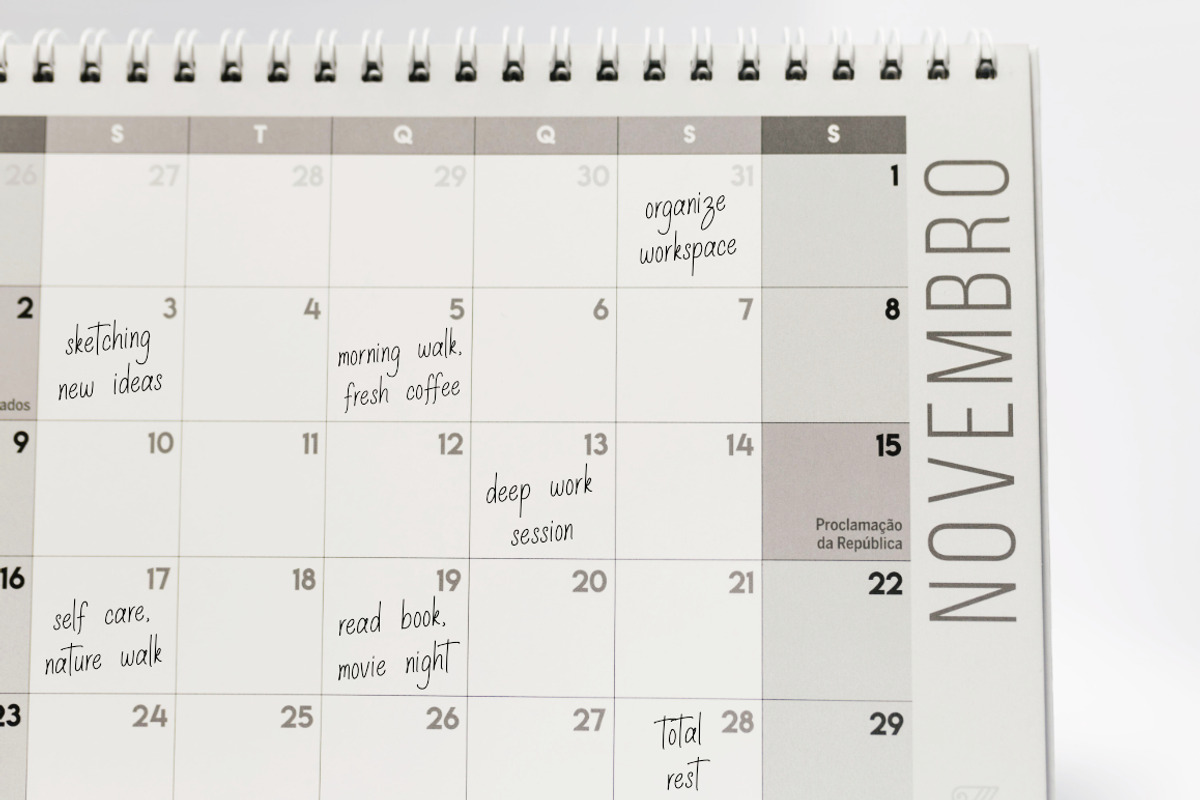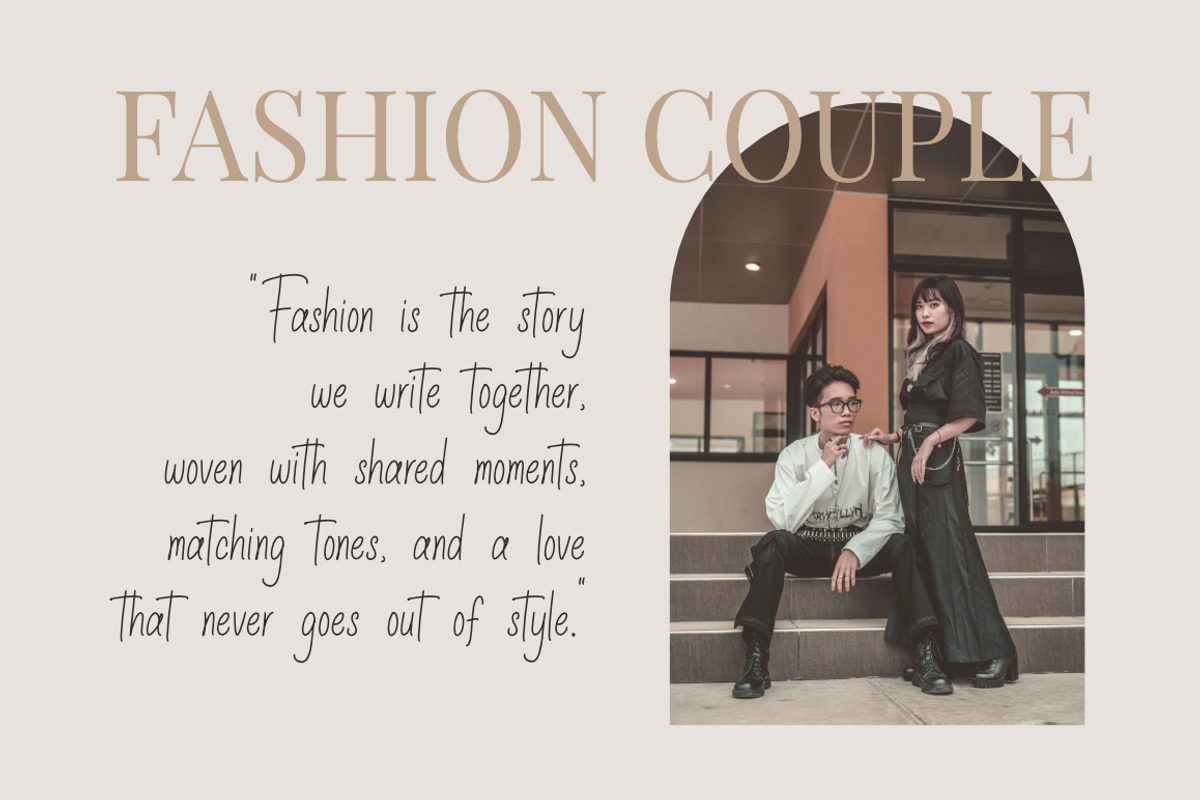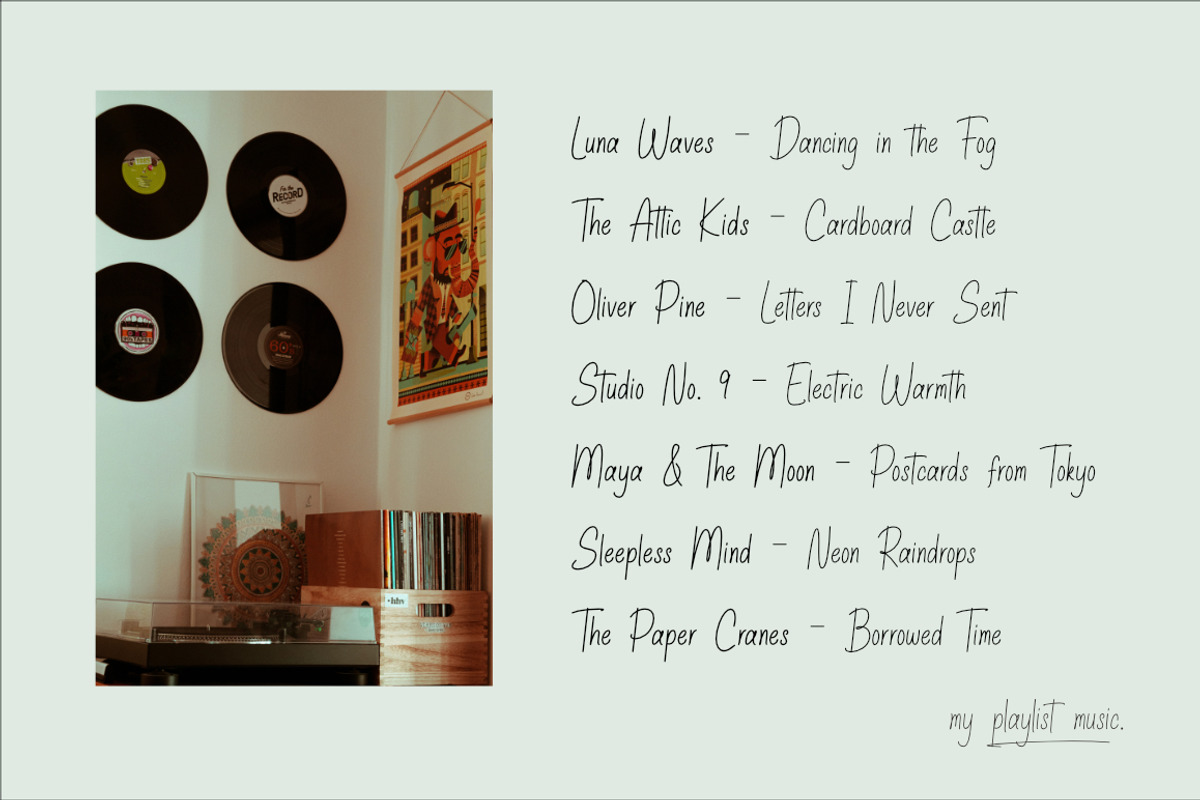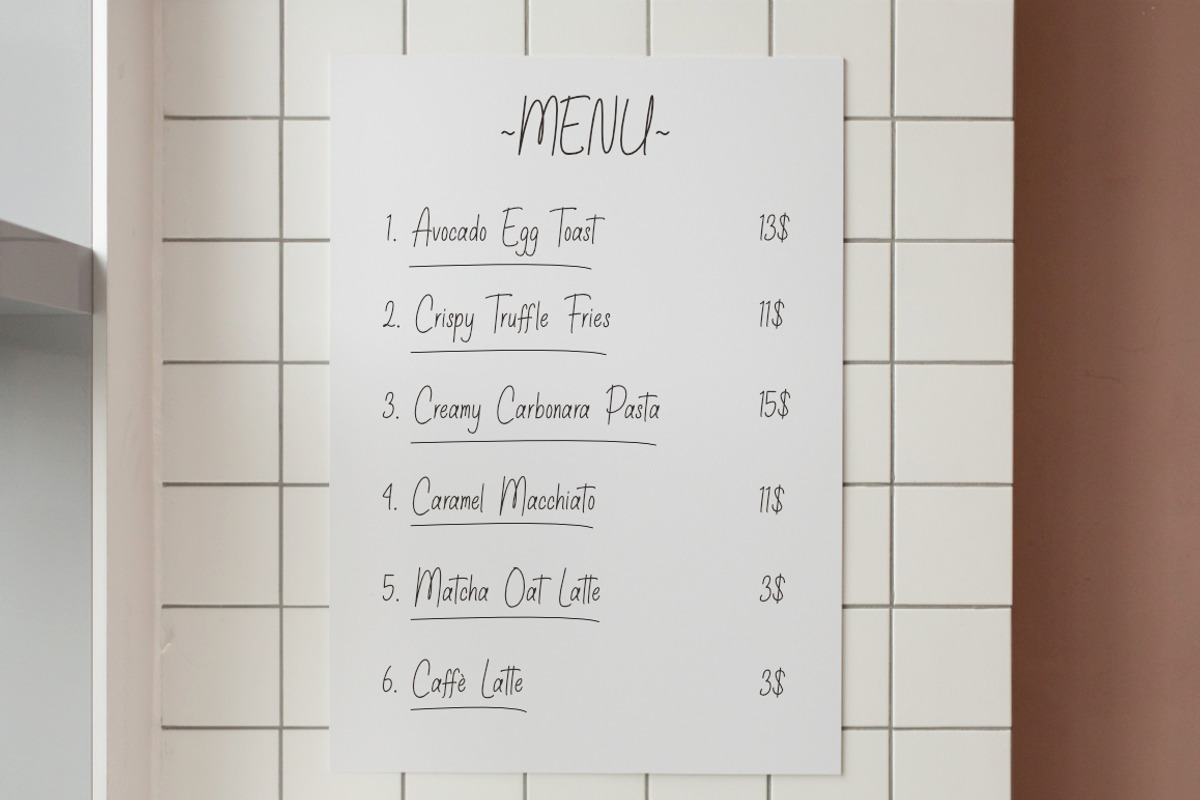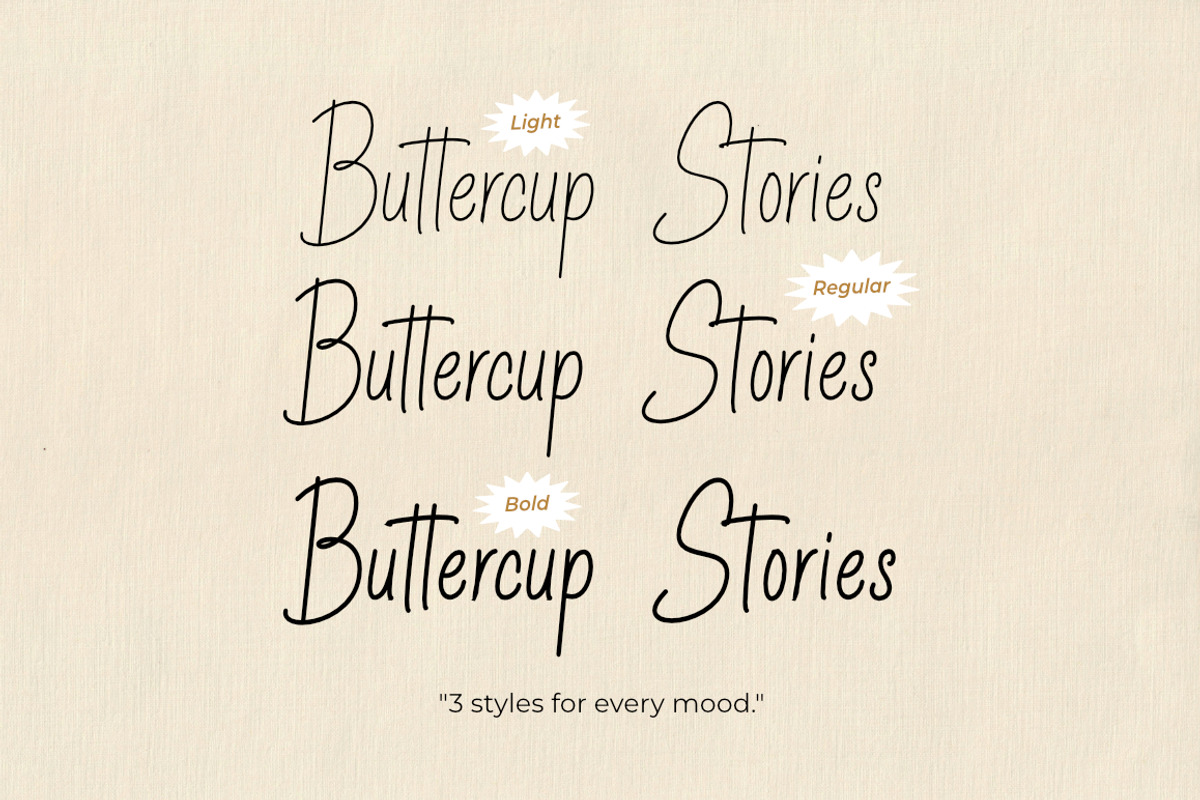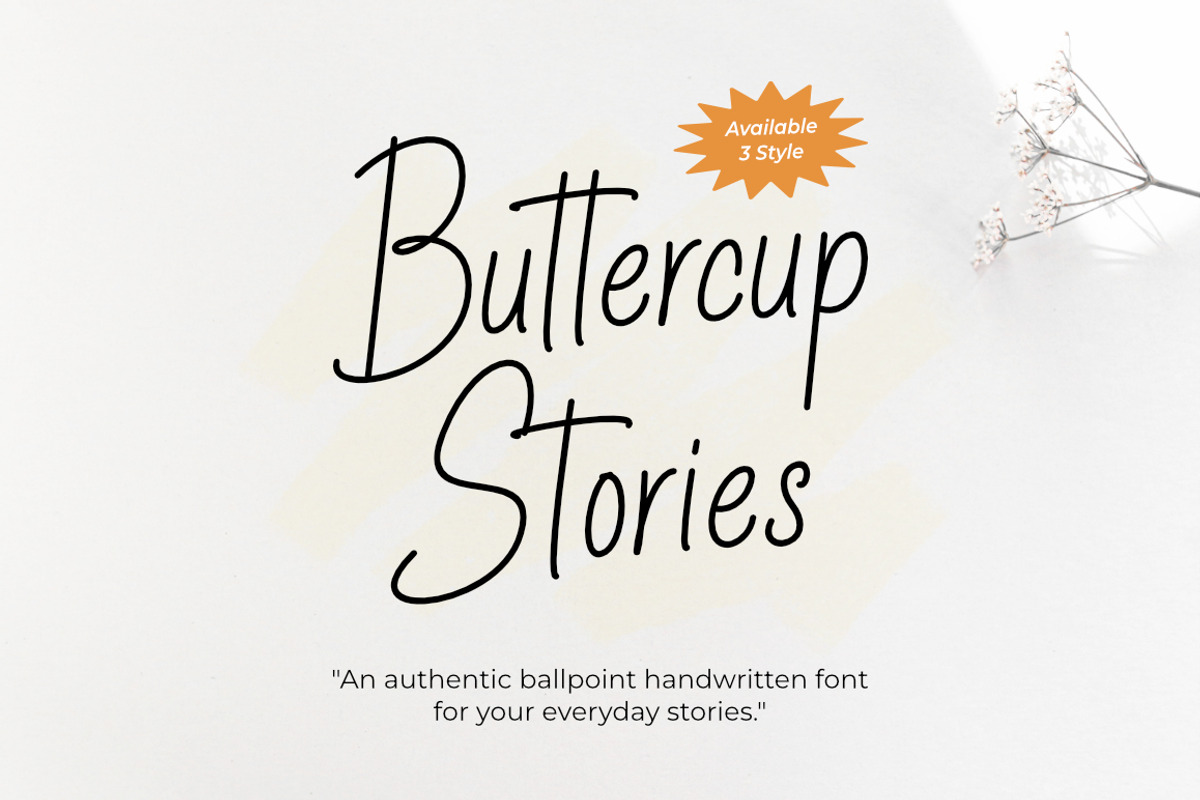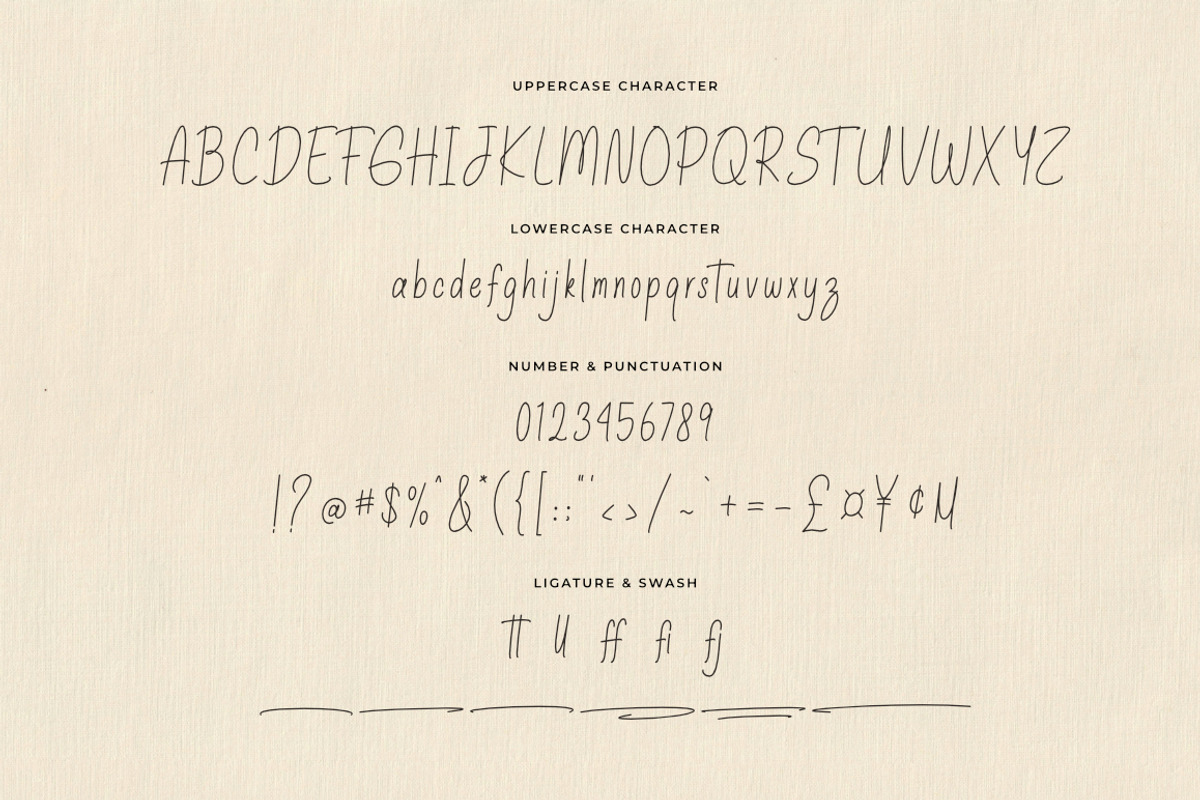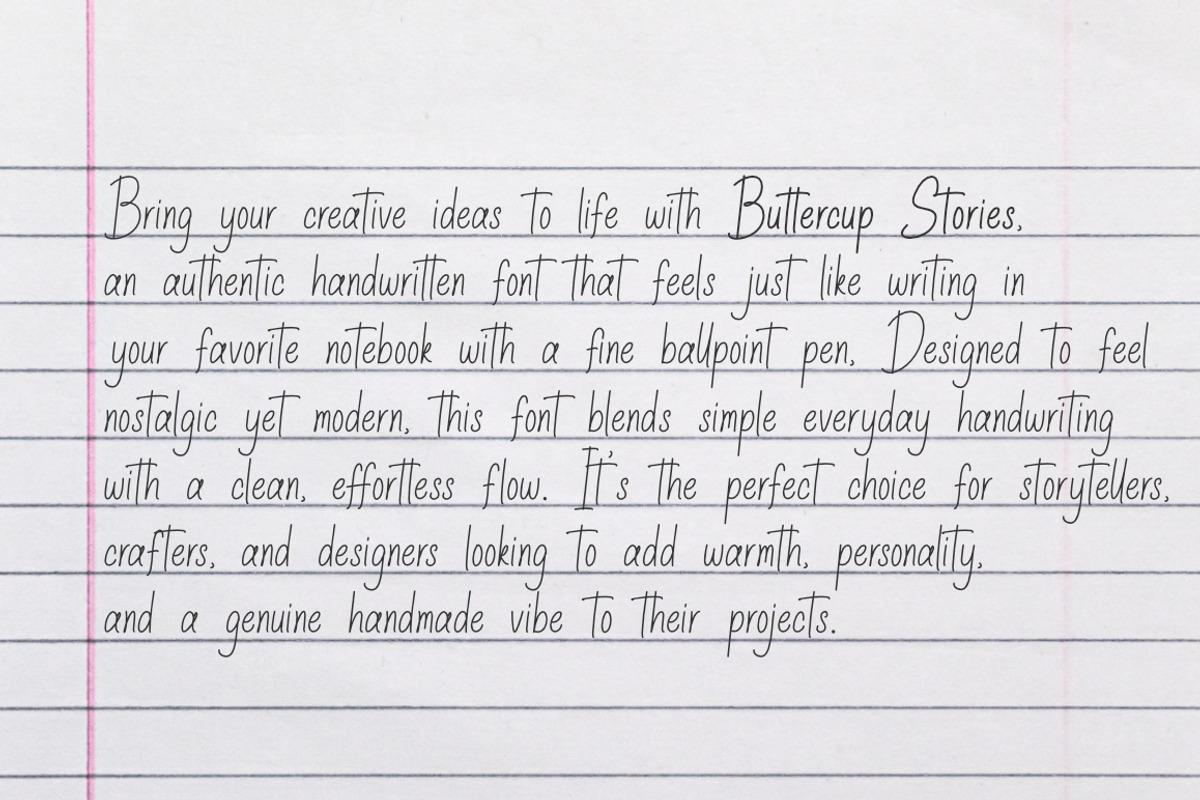
Buttercup Stories - Ballpoint Fonts
Buttercup Stories is a charming handwritten font designed to mimic natural, everyday penmanship on paper. Crafted with the authentic feel of a real ballpoint pen, this font features organic strokes, clean curves, and a cozy.
Perfect for adding a genuine, warm aesthetic to your creative projects, Buttercup Stories works beautifully for journal layouts, quote graphics, packaging, greeting cards, logo designs, social media posts, and wedding invitations. Bring a personal, storybook feel to your designs with this easy-to-read and modern fonts.
- Ligature Character
- Swash Characters
- Number & Punctuation
- Support Multilingual Languange